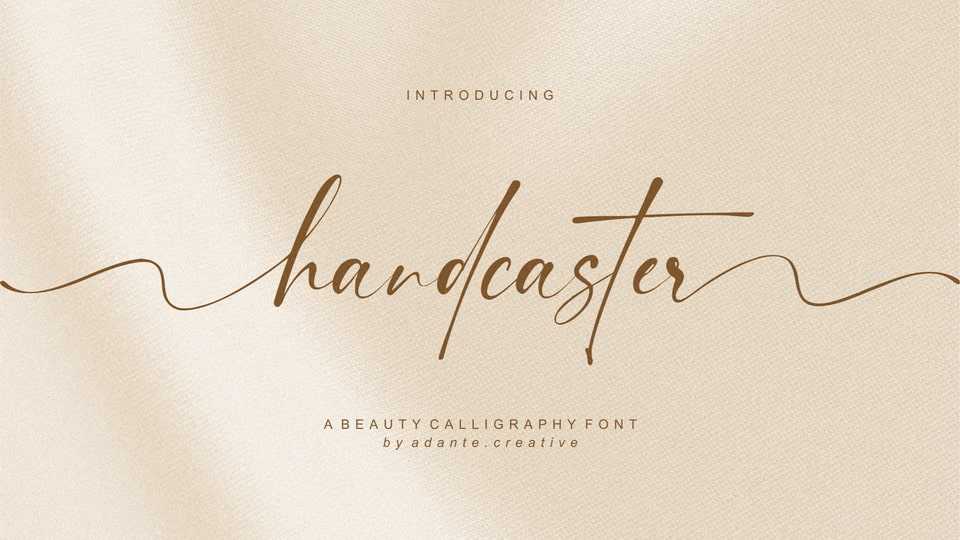
Download Handcaster font, a dazzling script typeface, neatly crafted and highly detailed. Whatever the topic, Handcaster font will be a wonderful asset for design, as it has the potential to enhance any creation.
Designer: Adante Creative